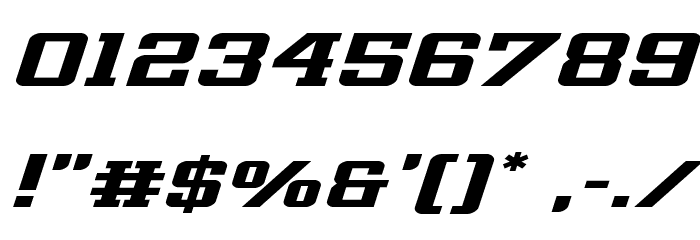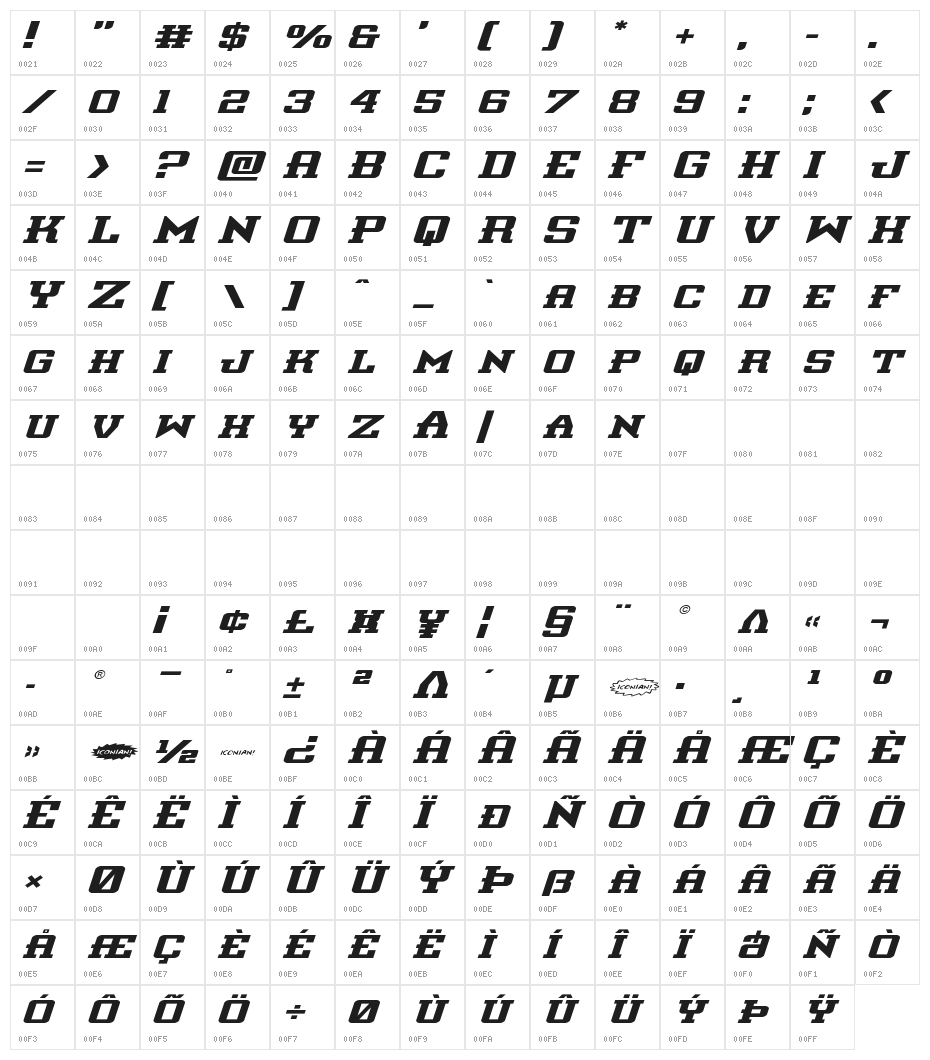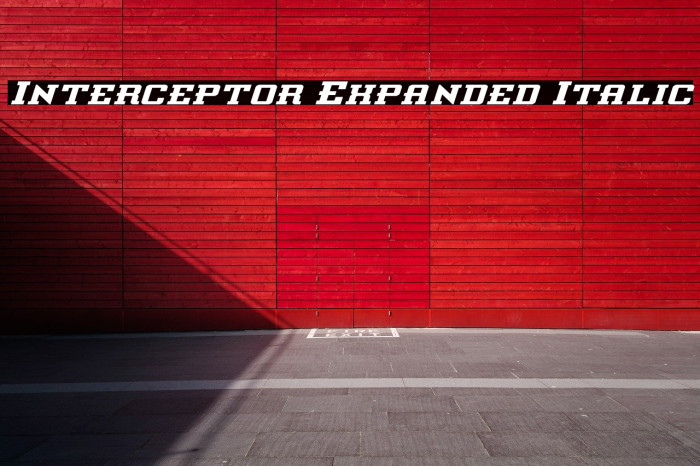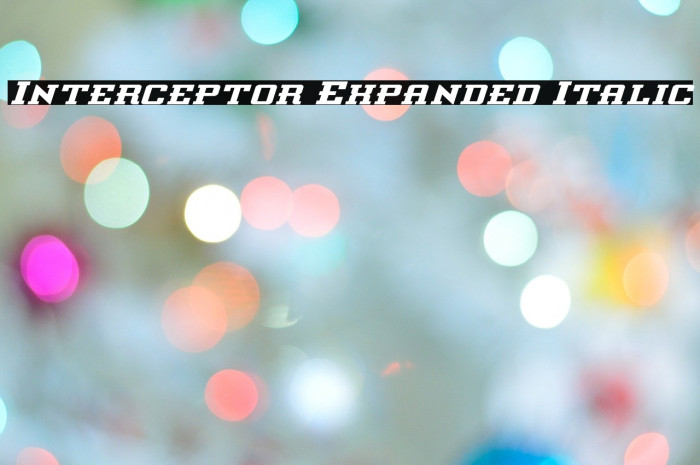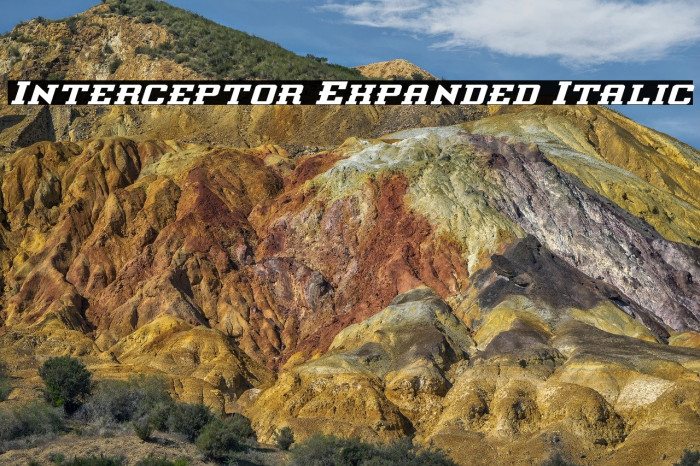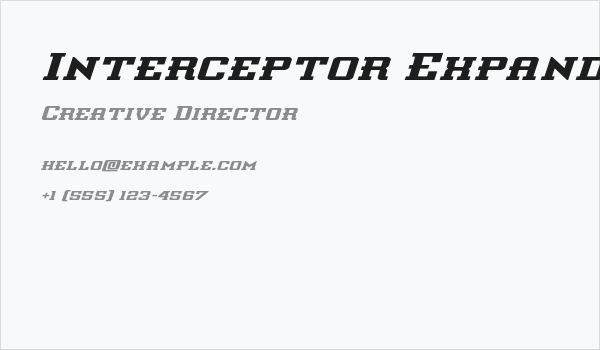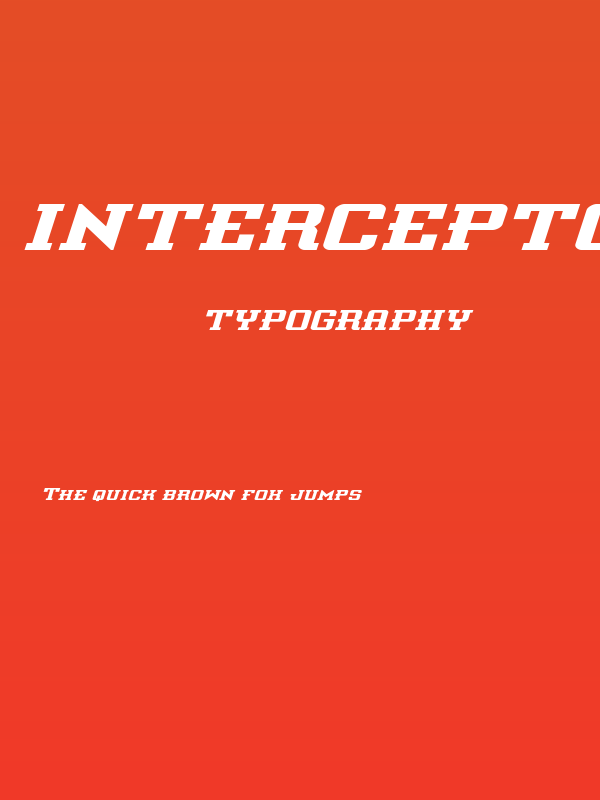
Interceptor Expanded Italic Font
Interceptor Expanded Italic Description
This font features a bold, italicized style with an expanded width, giving it a strong and dynamic presence. The characters are designed with a modern flair, incorporating sharp angles and clean lines that convey a sense of speed and movement. The uppercase letters are particularly striking, with a uniform height and consistent stroke weight that enhances readability. The numerals and special characters maintain the same bold aesthetic, ensuring a cohesive look across all text elements. This font is ideal for projects that require a bold statement, such as sports branding, automotive designs, or dynamic advertising campaigns.
| Use Case | Headlines, Logos, Advertising |
| Proposed Projects | Ideal for sports branding, automotive designs, dynamic advertising, and bold headlines. |